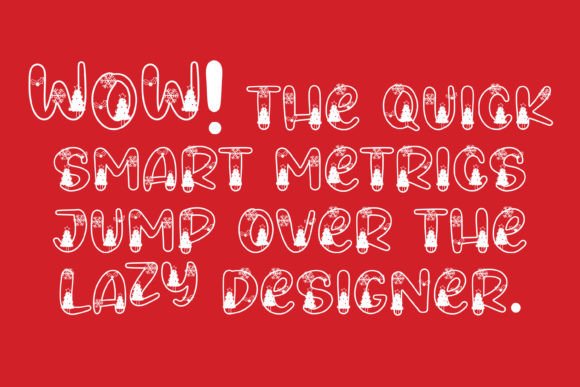
Introduction to Holi Christmas Font
The Holi Christmas Decorative font is a festive and whimsical typeface, perfect for holiday-themed designs.
Combining elements of both Holi and Christmas, this font adds a playful and joyful touch to your projects Its unique letterforms are adorned with seasonal ornaments, making it ideal for greeting cards, holiday posters, invitations, and digital scrapbooking.
Key Features of Holi Christmas Font
Why Choose Holi Christmas Font?
Holi Christmas Font offers exceptional quality and versatility, making it a valuable addition to your design toolkit. Whether you’re creating for personal projects or commercial use, Holi Christmas Font delivers professional results.